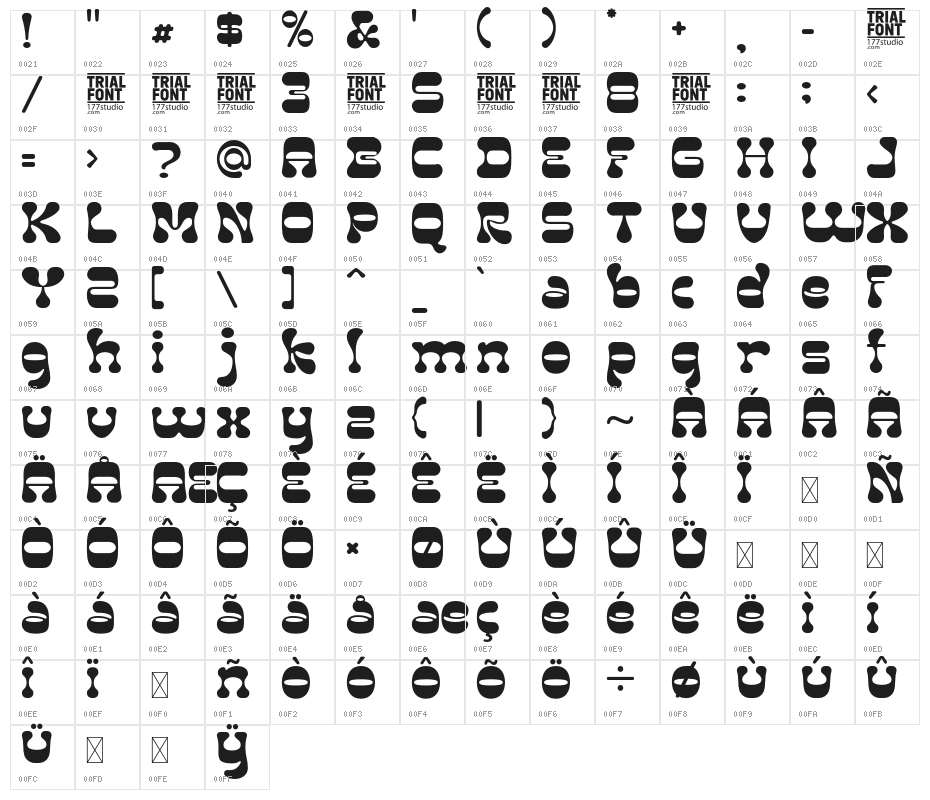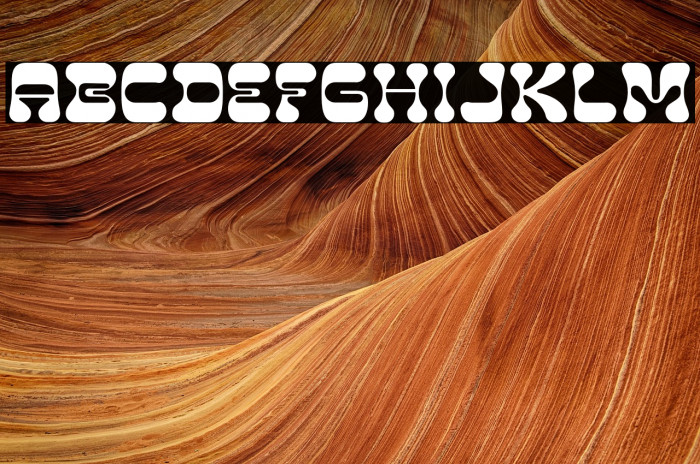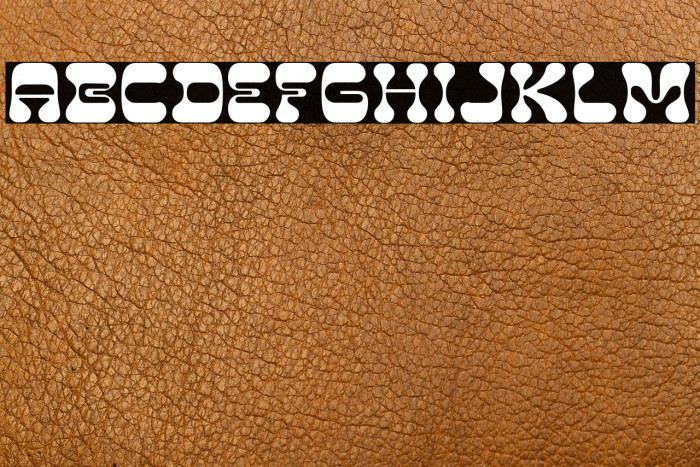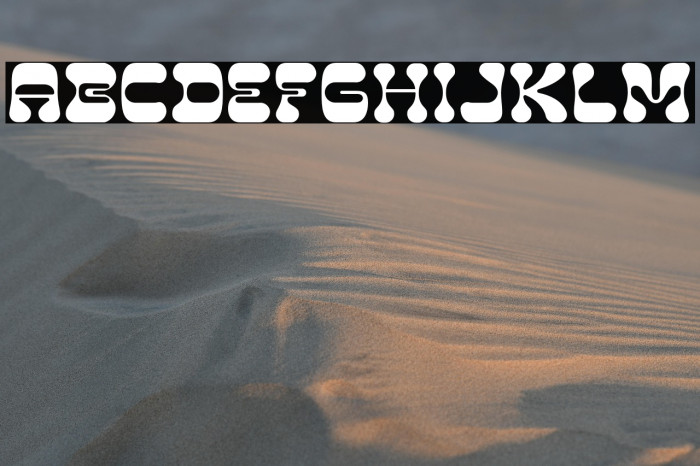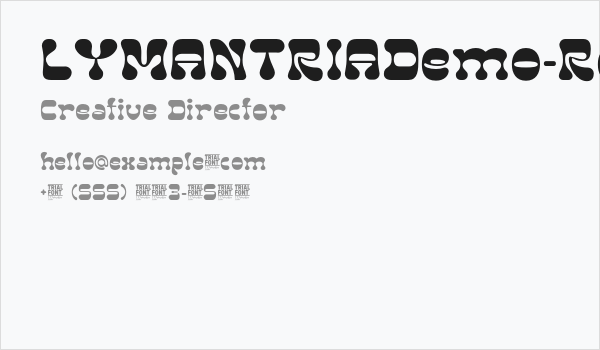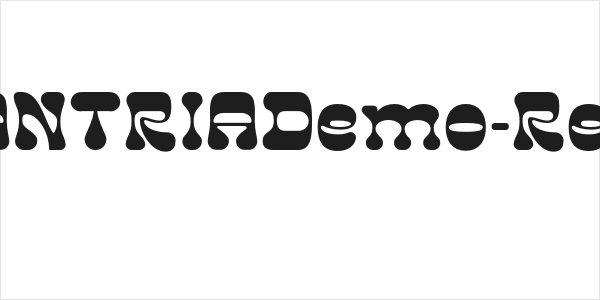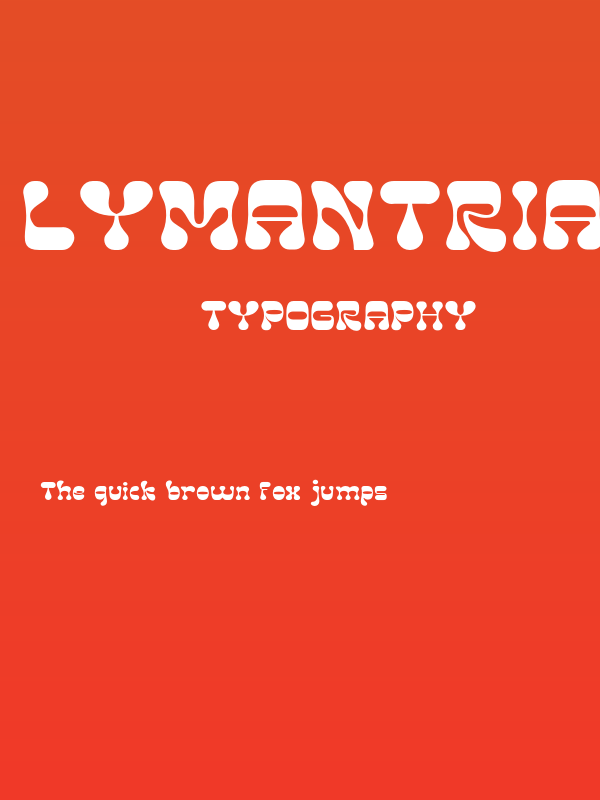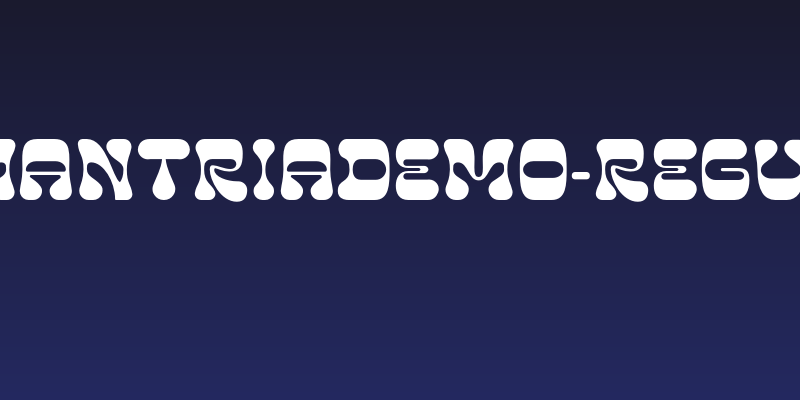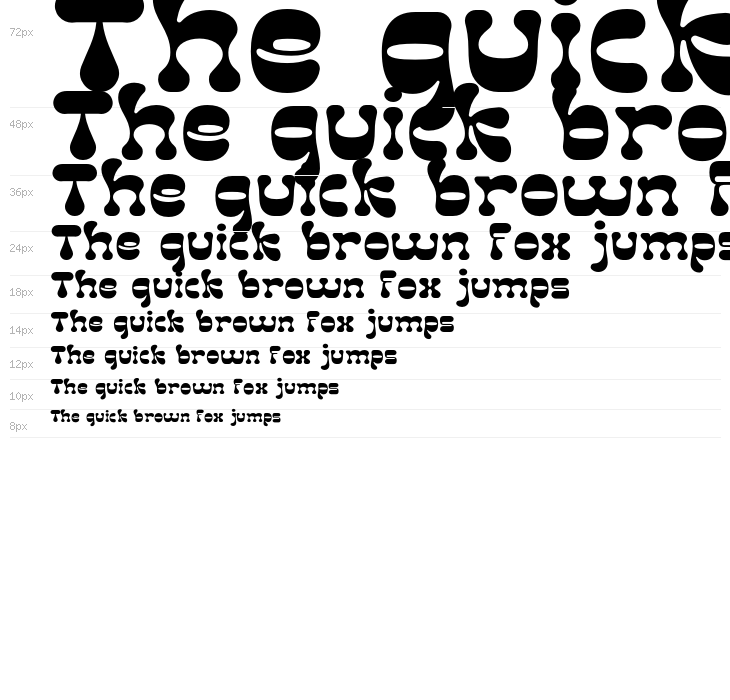
LYMANTRIADemo-Regular Font
LYMANTRIADemo-Regular Description
This font features a bold and playful design with rounded, bubble-like characters that create a unique and eye-catching appearance. The letters are thick and have a consistent stroke width, giving them a strong presence. The overall style is modern and decorative, with a quirky and fun vibe that makes it suitable for creative and informal projects. The characters are evenly spaced, providing a balanced look. This font is ideal for projects that require a bold statement, such as posters, headlines, and branding materials.
| Proposed Projects | Ideal for posters, headlines, branding materials, and creative designs. |